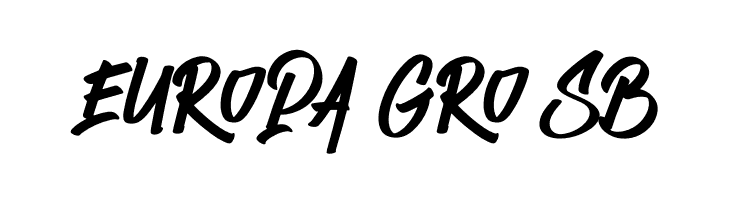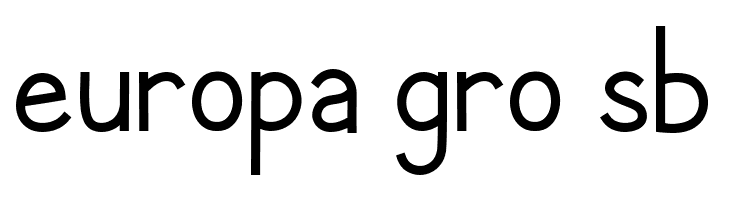
A playful, modern font with rounded characters and subtle decorative elements.
A playful, whimsical script font with interconnected letters and a handwritten feel.
Bold, playful font with a shadow effect and hand-drawn style.
A playful dotted font with a modern and decorative style.
A playful, whimsical script font with elegant loops and a hand-drawn style.
A playful, decorative font with bold, rounded characters and whimsical elements.
A playful, handwritten font with a smooth, flowing style.
A playful and elegant handwritten font with smooth, flowing strokes.
A clean, modern sans-serif font with smooth, rounded edges and balanced spacing.
A flowing, cursive script font with elegant, connected strokes.
A bold, expressive handwritten font with dynamic brush strokes.
A lively and expressive handwritten font with dynamic strokes.
Playful handwritten font with tall, narrow letters.
Playful and bold handwritten font.
A bold, playful font with rounded edges and a hand-drawn feel.
A bold, playful font with rounded edges and a uniform stroke.
An elegant, flowing script font with interconnected letterforms and a sophisticated style.
Elegant handwritten script font.
A playful, hand-drawn font with a whimsical and modern style.
A playful, hand-drawn outline font with thin, continuous strokes and a whimsical style.
A flowing, cursive script font with elegant, interconnected strokes.
A bold, dynamic script font with interconnected characters and high contrast.
A bold, handwritten-style font with dynamic and fluid strokes.
A bold, modern font with high contrast and tight spacing, ideal for headlines.
A bold, modern sans-serif font with uniform stroke width and high legibility.
A dynamic and elegant script font with flowing, cursive letterforms.
A sophisticated script font with flowing, connected letters and decorative flourishes.
A lively, flowing script font with bold, expressive characters.
A playful, hand-drawn font with bold, cartoonish outlines.
A playful, narrow font with a hand-drawn, artistic style.
A playful and decorative font with floral and star motifs.
An elegant script font with flowing, interconnected letters and classic calligraphic style.
A bold, handwritten font with dynamic, cursive strokes.
A bold, expressive script font with a dynamic, handwritten style.